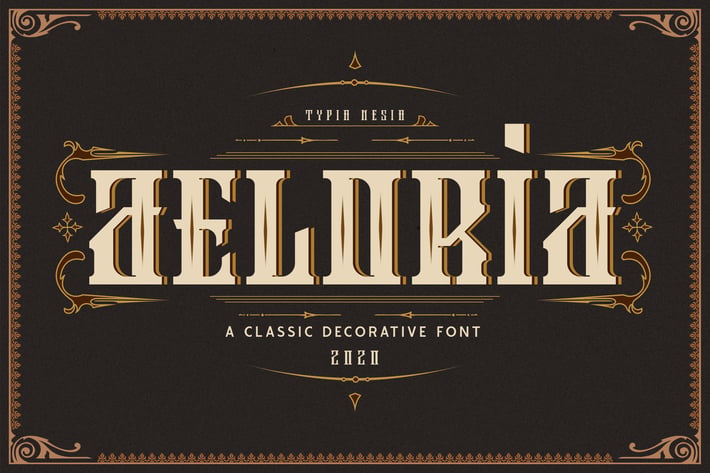
Aeloria Vintage Decorative Font
Aeloria Vintage Decorative Display Font
Aeloria font is perfect for your up coming projects. Such as logo branding, game, fantasy novel, movie, editorial design, stationery design, sport design, blog design, modern advertising design, card invitation, art quote, home decor, book/cover title, special events and any more.